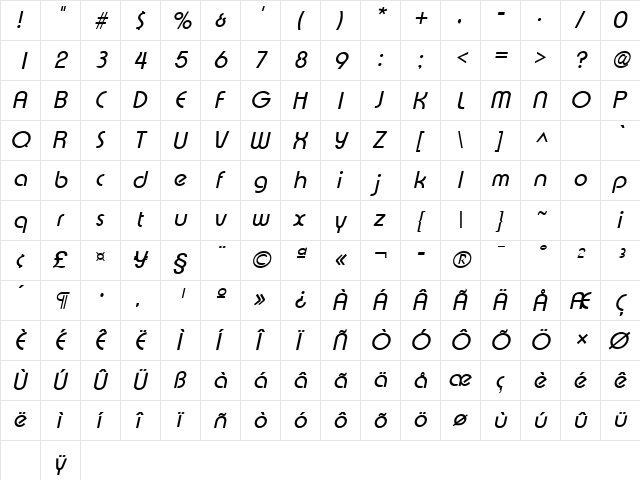
Expressa Italic
Design Context for Expressa Typeface
Expressa offers clean, dependable letterforms without strong stylistic allegiance, making it a practical choice for designers who need flexibility. The dynamic lean of this cut emphasises speed and emphasis in any layout.
Pro Tip: Use Expressa for emphasis, pull quotes, and subheadings where its slanted energy can add rhythm to the layout.